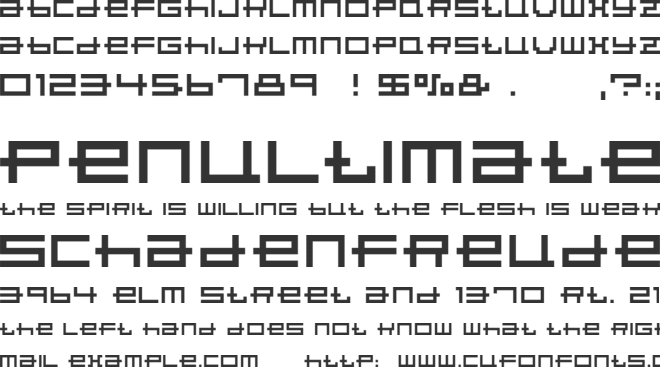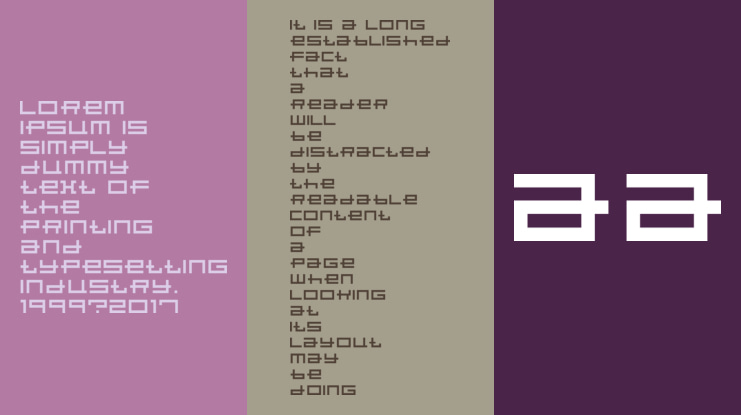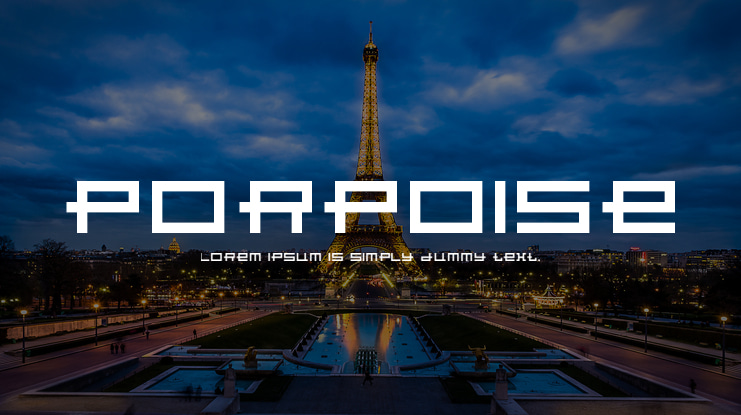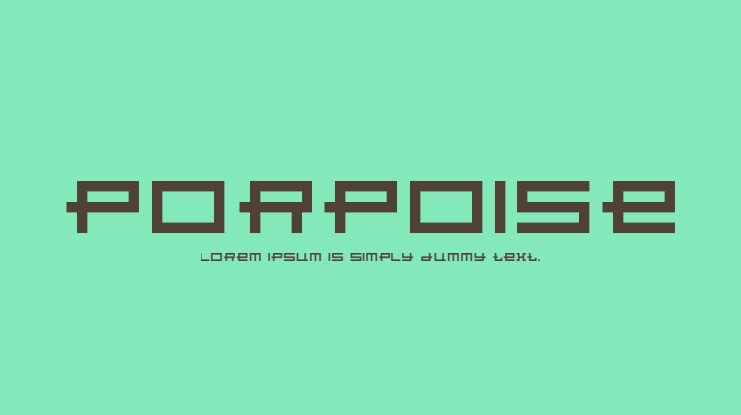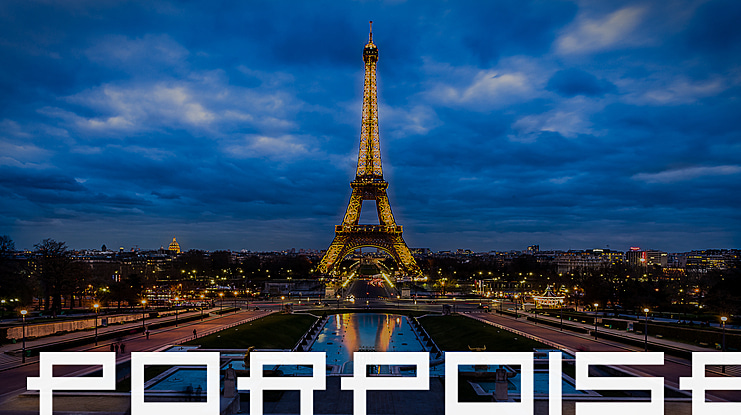
Porpoise Font
Porpoise is inspired by the work of the Constructivist movement. It is only recently that Generation - X has discovered this movement's artwork. You might use it to do art for a science fiction game, or label a techno-punk band's CD. It's not for the traditionalist.